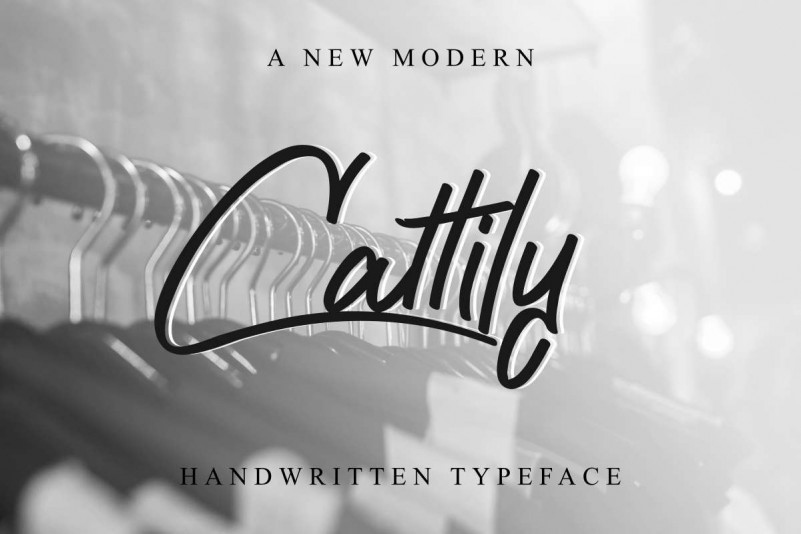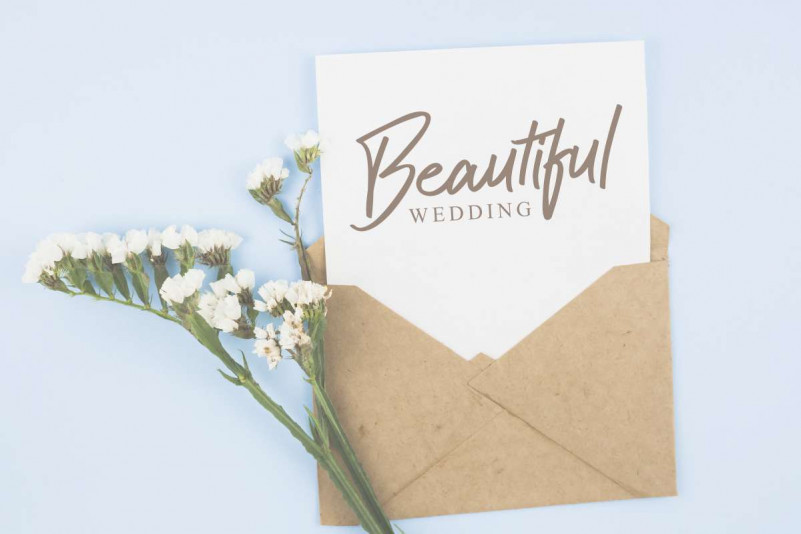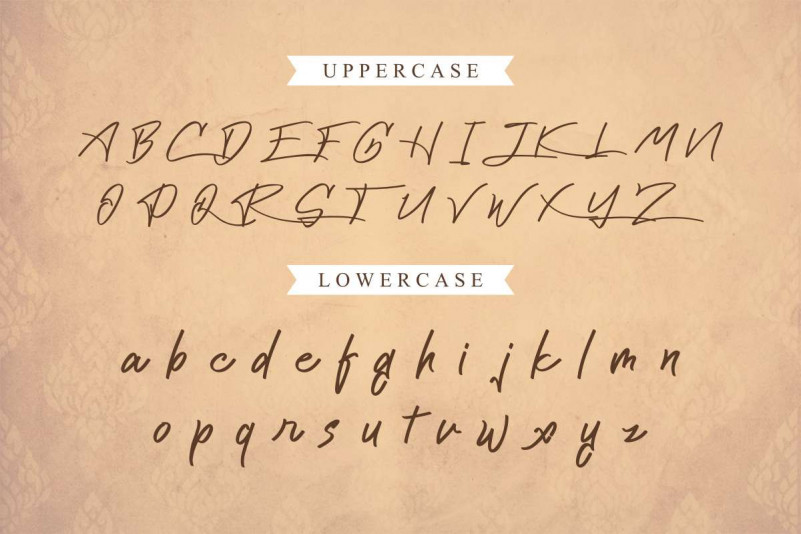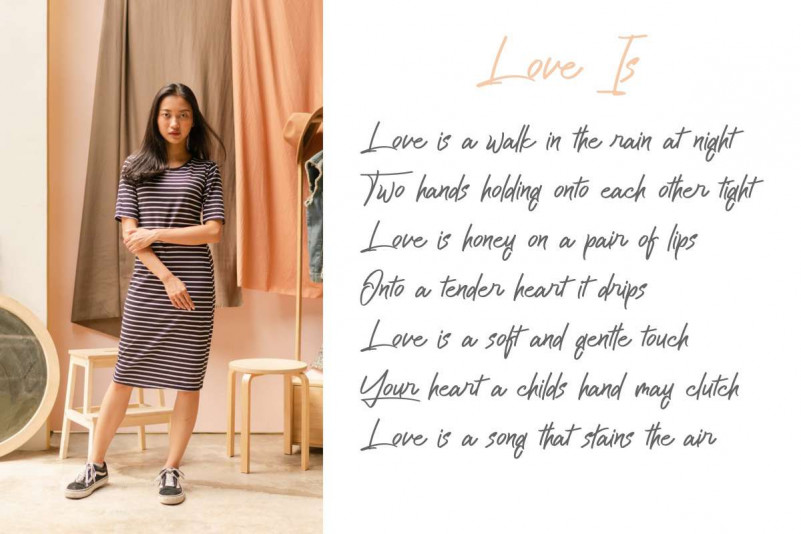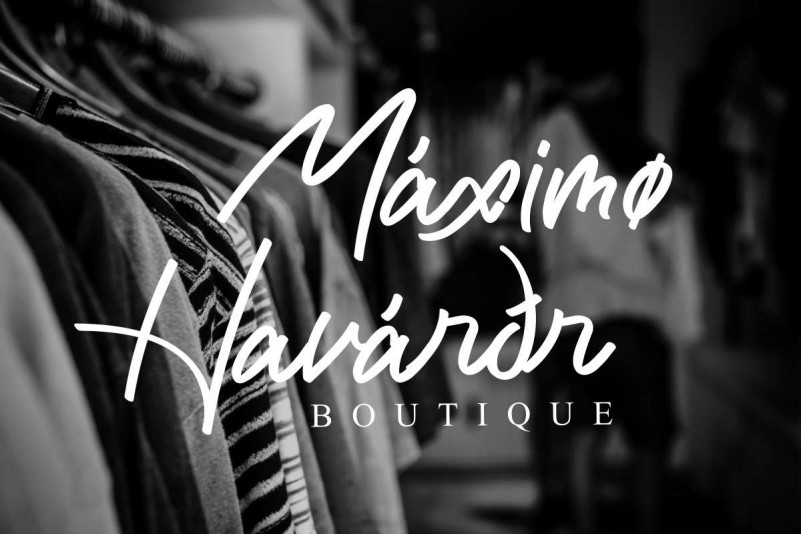
Cattily Calligraphy Font
Hei , please meet our latest font : Cattily Font! It is a Calligraphy handwriting Script Font! Cattily is a new modern Calligraphy script font with stylish look brush lettering. It will be awesome for many industries and projects : Wedding, professional, person name, signature, modern, law firm, makeup artist, photography, travel, hotel, fashion, cafe, cake-food etc. Flyer, banner, promotion, brochure, logotype (need extended license), social media, quote etc